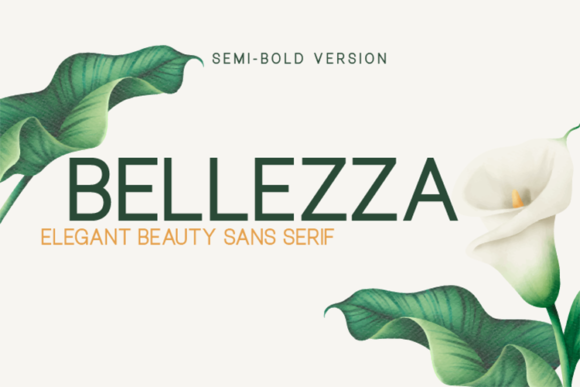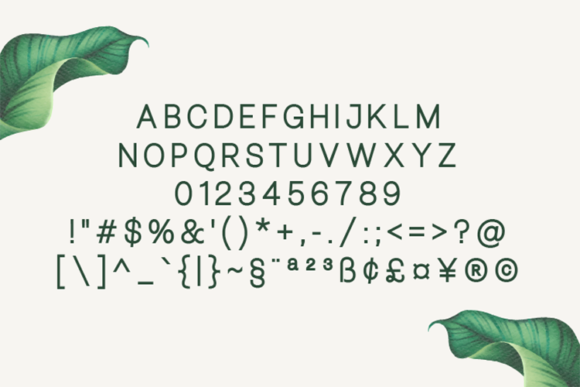
Bellezza Semi-Bold Font
About Bellezza Semi-Bold Font
Bellezza is a modern sans serif with a geometric touch. It’s perfectly suited for graphic design and for display purposes.